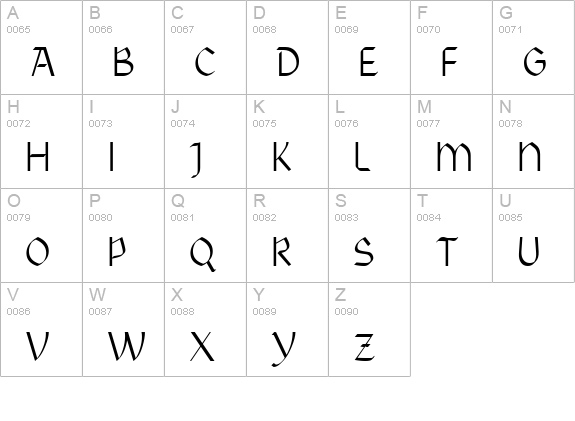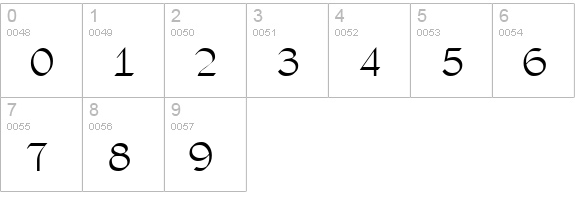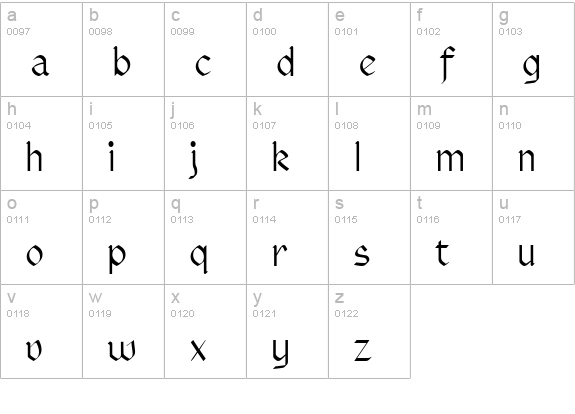
Rundigsburg Plain Font Details
Rundigsburg Plain font is a classic and elegant typeface that exudes sophistication and style. With its clean lines and timeless design, this font is perfect for a wide range of design projects, from branding to editorial to web design. The simplicity of Rundigsburg Plain font makes it incredibly versatile and easy to read, ensuring that your message stands out loud and clear. The best part? Rundigsburg Plain font is available for free download at FontsMarket.com. Simply visit the website and add this beautiful font to your collection without any cost. Whether you're a seasoned designer or just starting out, Rundigsburg Plain font is a must-have addition to your font library. Download it today and elevate your designs with this exquisite typeface.